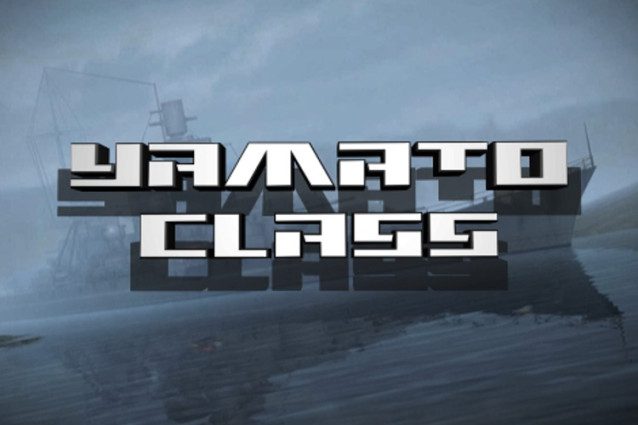
Yamato Class Font
Yamato Class Font a strong, confident and powerful typeface designed to suit sports logos, club branding, apparel applications, labels and more.